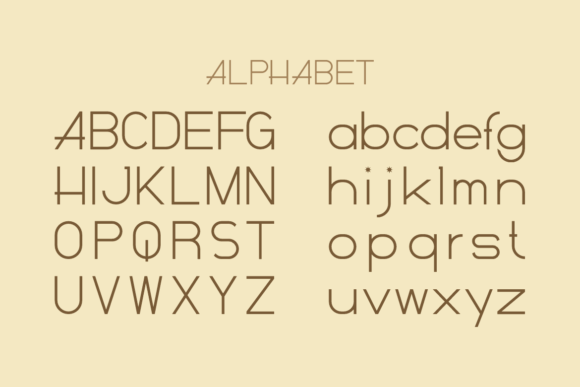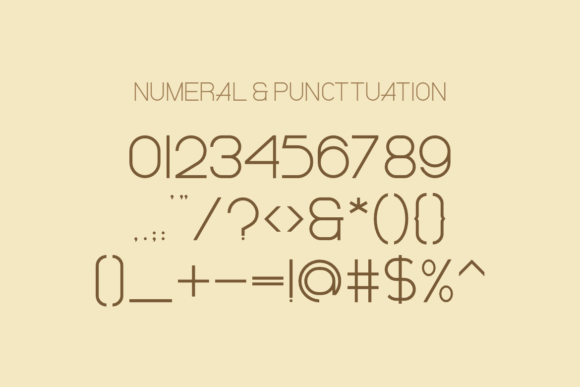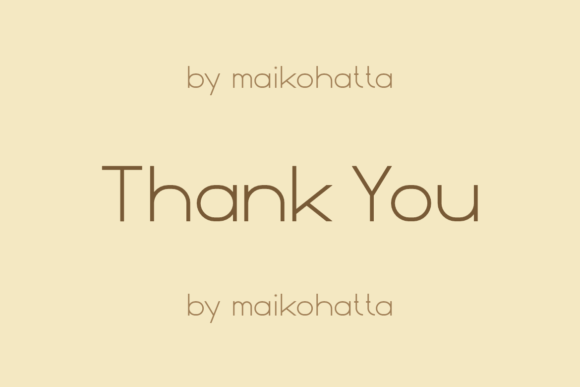
Unlock the Power of Aderra Font: Elevate Your Designs
Have you ever stared at a blank canvas, waiting for the perfect font to bring your creative vision to life? The moment when all the pieces fall into place, and your design takes shape – it’s a feeling like no other. For designers, this moment is what drives us to keep pushing the boundaries of what’s possible.
Enter Aderra Font, a sleek and modern sans serif font that’s ready to take your creations to the next level. Whether you’re working on a branding project, a website, or a social media campaign, Aderra Font has the versatility to elevate your message and make it shine. With its clean lines and sophisticated feel, this font is a valuable addition to any designer’s library.
Key Features of Aderra Font
- Language Support: Aderra Font supports over 200 languages, including Latin, Cyrillic, and Greek alphabets, making it a versatile choice for global designs.
- Unique Characteristics: Aderra Font features a distinctive, modern design with a focus on readability, making it perfect for headlines, titles, and body text.
- Kerning and Glyphs: The font includes advanced kerning and glyph support, ensuring seamless integration with other fonts and a professional look in any design.
Aderra Font Review
Aderra Font is an elegant sans-serif font that I had the chance to try out recently. Overall, it’s a solid choice for various design projects, but let’s dive into what works well and what doesn’t.
- Aderra Font has a clean and modern design aesthetic, making it perfect for websites, applications, and other digital interfaces.
- The font is highly legible, even at small font sizes, which is essential for readability.
- The font family includes a range of weights, from light to bold, allowing for flexibility in design.
- Aderra Font supports multiple languages, making it a great choice for international projects.
- The font may not be the best choice for complex or highly stylized designs, as it’s more suited for clean and minimalistic layouts.
- The font’s elegance can sometimes come across as sterile or generic, which may not be ideal for projects requiring a unique personality.
Overall, I think Aderra Font is a reliable choice for designers looking for a clean and modern sans-serif font. While it may not excel in every aspect, it’s a solid foundation for various design projects.
Aderra Font is a versatile font that can be used in a variety of contexts, including:
- Corporate branding and marketing materials
- Editorial and publishing content
- Website and app design
Some tips for getting the most out of Aderra Font include:
- Using it in combination with other fonts to create a unique and visually appealing design
- Experimenting with different font sizes and styles to create emphasis and hierarchy
- Using it in bold or italic styles to add emphasis and create visual
Alternatives to Aderra Font
Aderra Font is a modern sans-serif font known for its clean and elegant appearance. However, designers may want to explore other options for specific projects. Here are a few alternatives to consider:
Lato Font is a popular sans-serif font designed by Łukasz Dziedzic. It’s highly legible and versatile, making it suitable for various projects, including digital products, magazines, and websites. Compared to Aderra Font, Lato has a more rounded appearance and is often used for body text. It’s a great option when you need a clean and modern font without the sharp edges of Aderra.
Montserrat Font is a geometric sans-serif font designed by Julieta Ulanovsky. It’s highly legible and modern, making it perfect for digital products, mobile apps, and websites. Compared to Aderra Font, Montserrat has a more geometric appearance and is often used for titles and headings. It’s a great option when you need a font that’s both modern and highly legible.
What is the font size range of Aderra Font?
Aderra Font supports font sizes ranging from 8px to 72px. However, the recommended font size range is between 12px and 48px, as this will ensure optimal readability and legibility. You can experiment with different font sizes to achieve the desired effect in your designs.